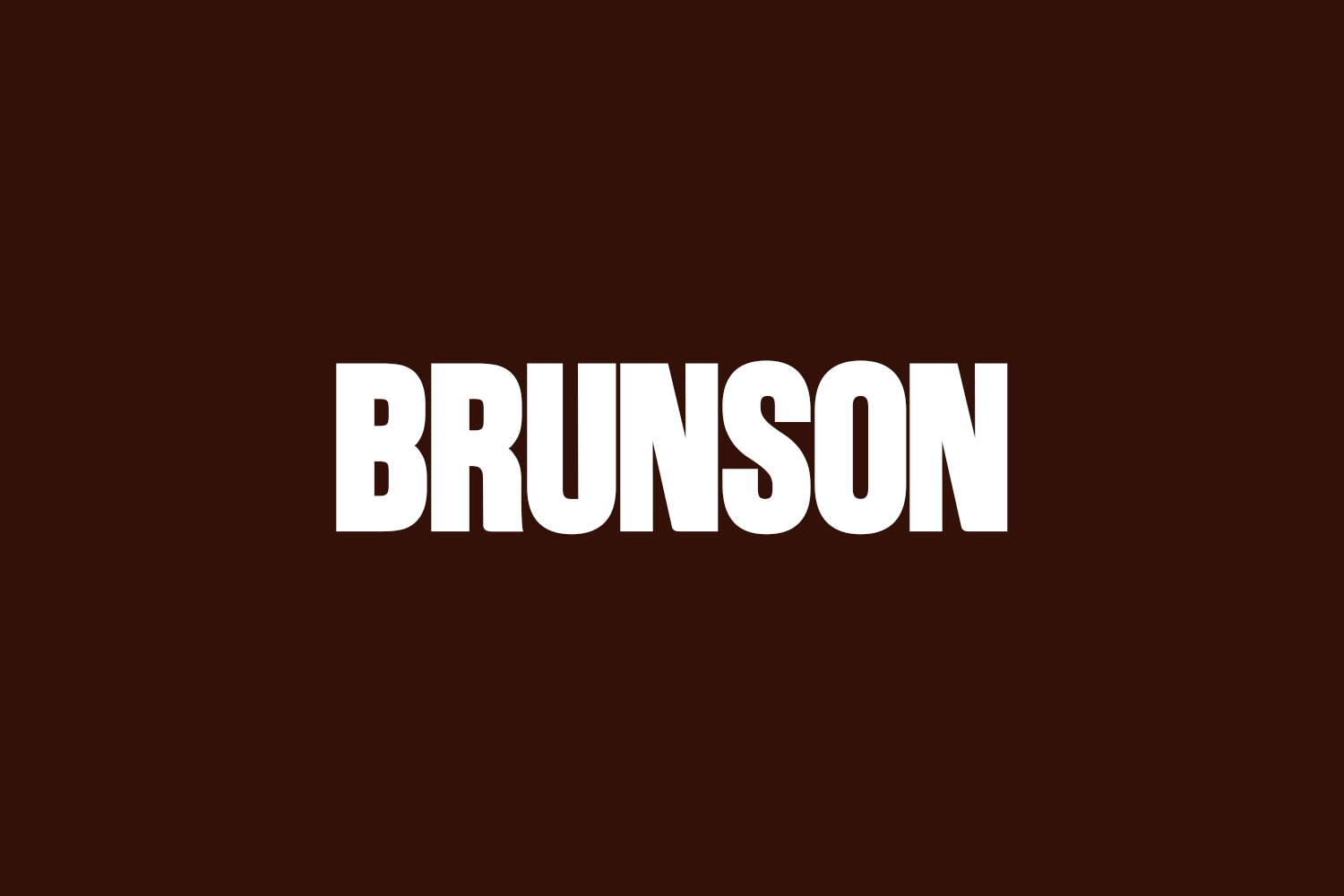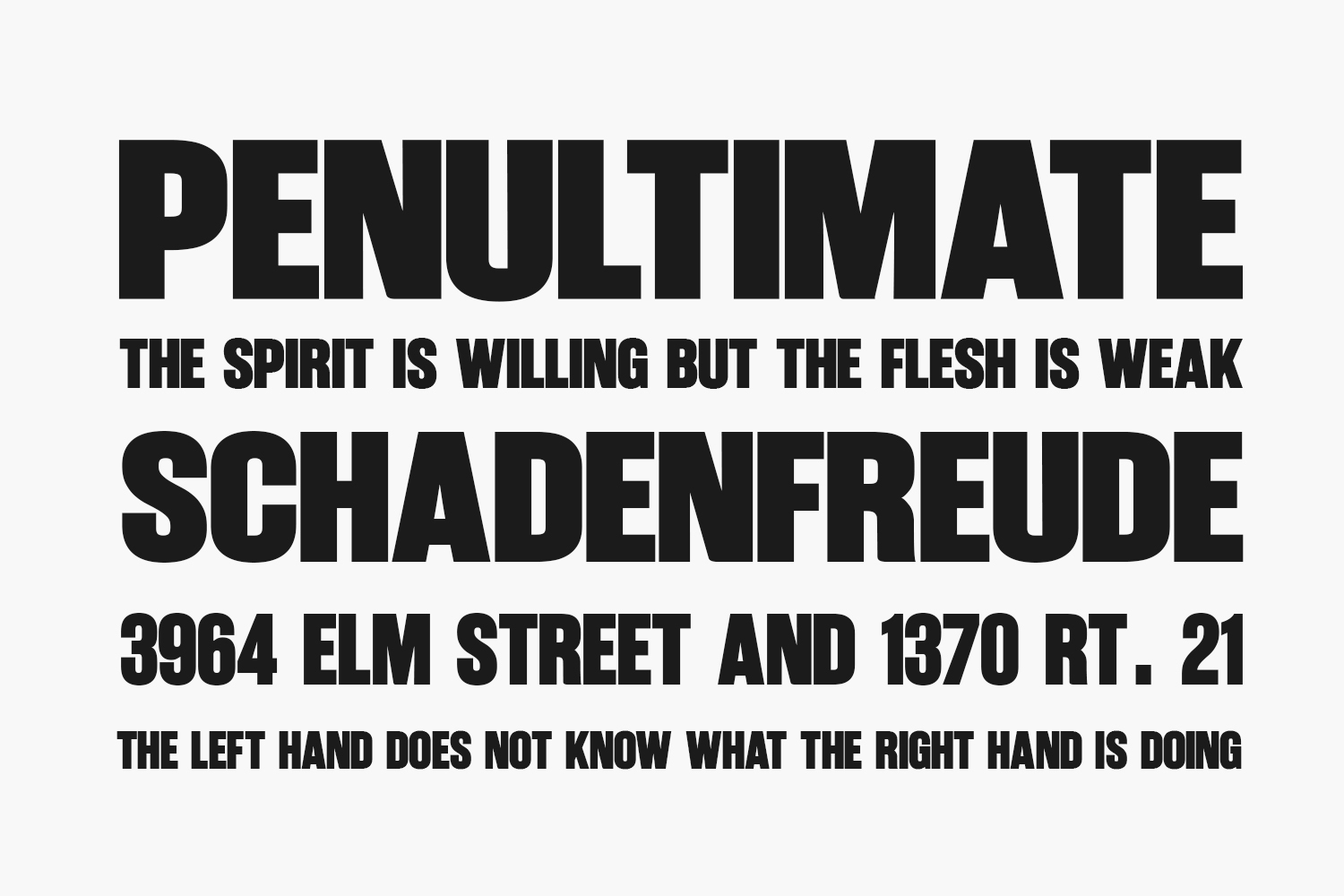
Brunson is a powerful and bold sans-serif display font designed by The Branded Quotes to bring industrial strength and visual impact to your creative projects. With its thick lines, sharp edges, and rough alternate style, this free decorative typeface works perfectly for crafting attention-grabbing logos, posters, album covers, social media banners, and more. Available in TTF format — ideal for designers seeking a strong, modern font that commands presence without sacrificing clarity.
Why Choose Brunson?
- Bold Industrial Style: Combines clean geometry with textured Rough variant for a high-contrast, urban appeal.
- Ideal for Display & Posters: Perfect for large text applications like billboards, concert flyers, or digital banners needing visibility from a distance.
Where to Use Brunson?
Brunson shines across a variety of creative applications:
- Logos & Branding: Adds attitude to brand identities for streetwear labels, music studios, or action brands needing a loud tone.
- Poster & Billboard Design: Designed for maximum visibility — makes headlines pop in outdoor advertising and event banners.
- Social Media Graphics: Creates bold text overlays for Instagram Stories, TikTok videos, or YouTube thumbnails with a gritty vibe.
- Album Covers: Enhances music branding with dramatic typography that evokes raw culture and energy.
- Packaging Design: Brings intensity to product names on beverage cans, novelty items, or lifestyle goods requiring an edgy look.
Design Tips with Brunson